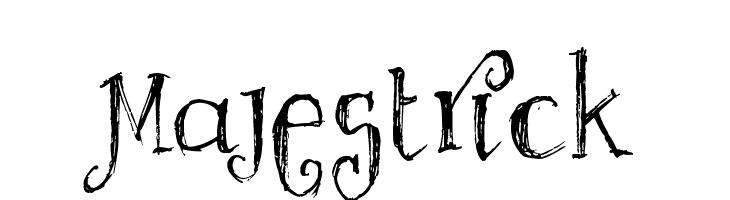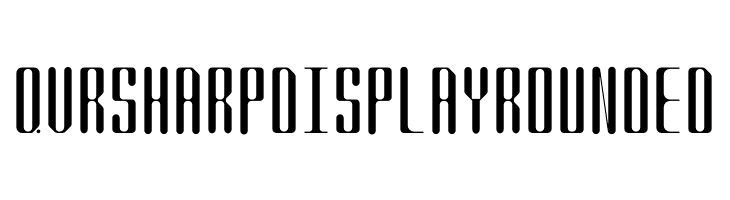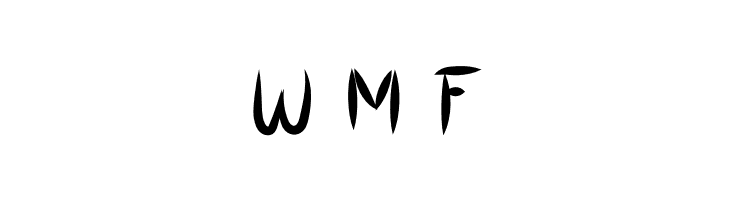
An ornate, decorative font with intricate swirls and vintage calligraphic style.
Casual handwritten script with varying stroke thickness.
A delicate, flowing script font with elegant cursive letterforms.
A bold, rounded font with a playful and modern style.
A modern, slanted font with clean lines and a dynamic appearance.
A bold, expressive handwritten font with dynamic strokes and artistic flair.
A modern sans-serif font with a rounded, approachable design and excellent readability.
A modern, rounded, and sharp font with elongated, narrow characters.
A lively and expressive handwritten font with fluid, dynamic strokes.
A bold, futuristic font with a gradient effect created by horizontal lines.